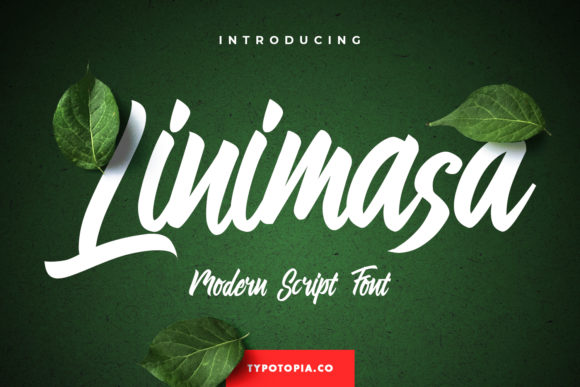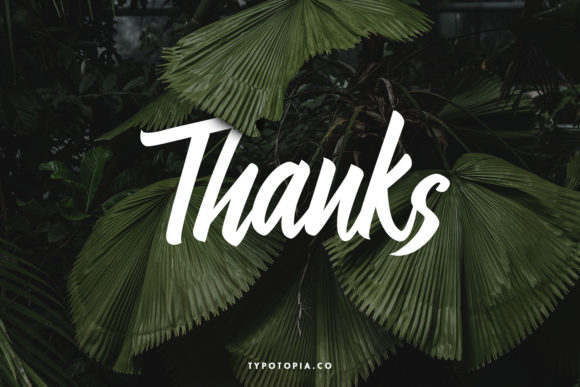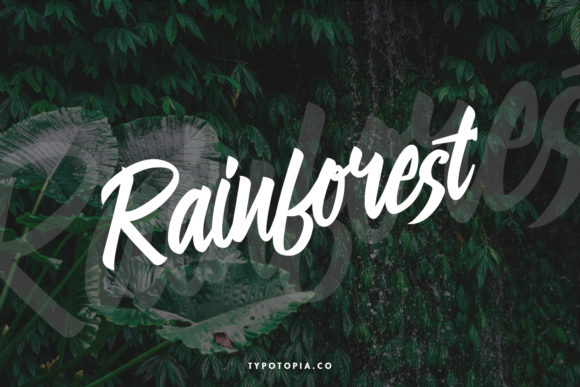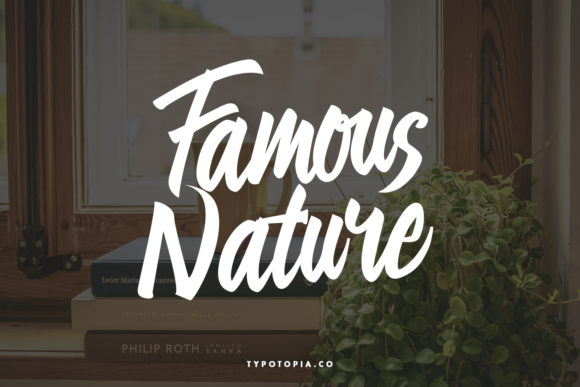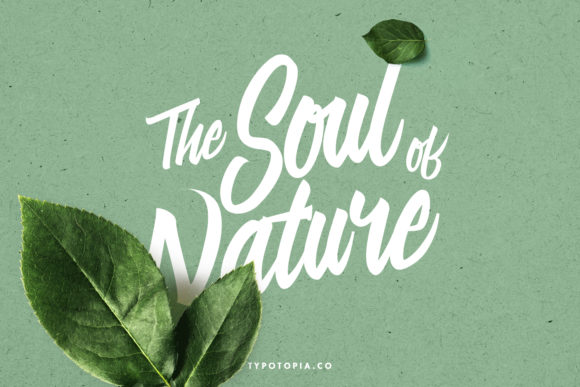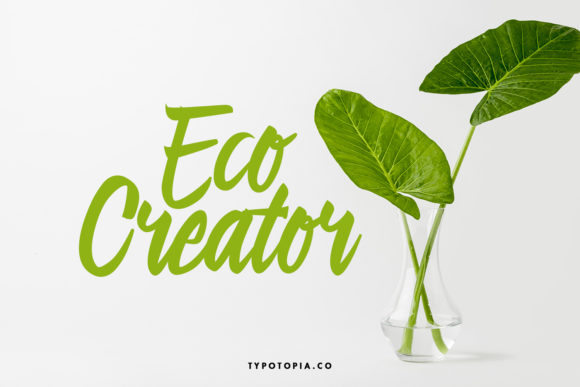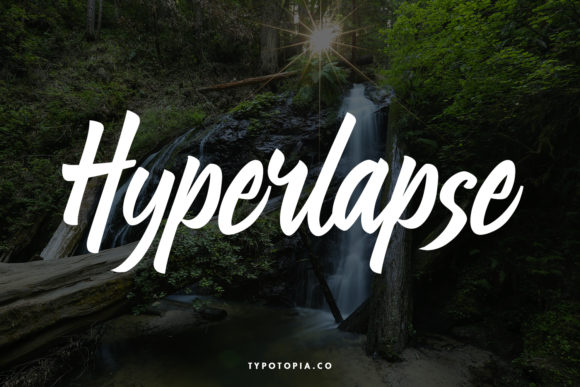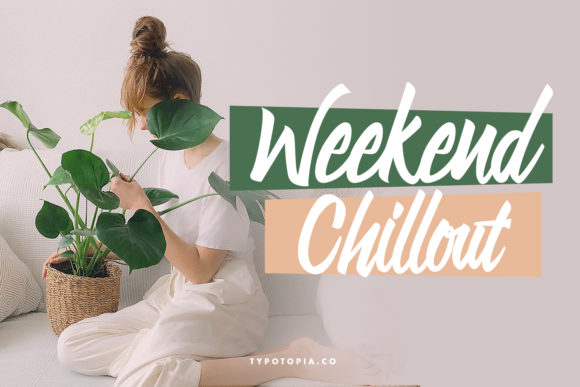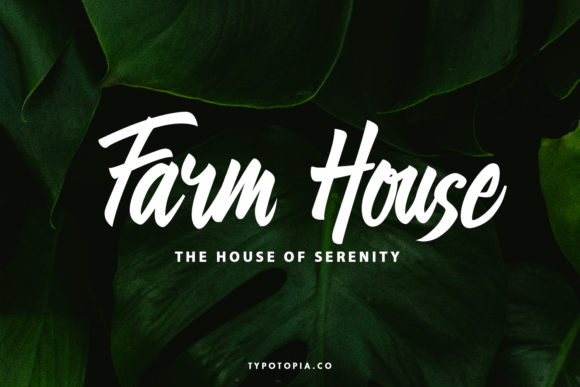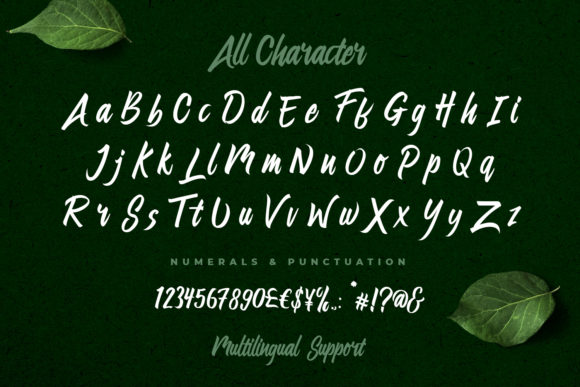
Linimasa Font
About Linimasa Font
“Linimasa” is an exquisite handwritten font that has been meticulously crafted to become a beloved favorite. It seamlessly blends classy calligraphic influences with a contemporary and fresh feel. Prepare to be captivated by its elegance and modernity as you incorporate it into your design projects, taking them to new heights of creativity and sophistication.
The allure of “Linimasa” lies in its careful design, which pays homage to classic calligraphy while infusing a modern twist. Its flowing strokes and graceful curves create a harmonious balance between tradition and innovation. As you explore its distinct style, you’ll discover the perfect fusion of timeless beauty and contemporary aesthetics.
“Linimasa” is poised to enhance a wide variety of design projects. Whether you’re working on wedding invitations, logos, branding, or any creative endeavor that requires a touch of elegance, this font is ready to elevate your work. Its ability to seamlessly blend the old with the new makes it a versatile tool that adapts to different design contexts effortlessly.
As you incorporate “Linimasa” into your designs, you’ll witness how it breathes life into your creative visions. From crafting captivating wedding invitations to designing striking logos, this font exudes a sense of refinement and innovation that captures attention and admiration.
Embrace the beauty of “Linimasa” and let it become an essential element in your design toolkit. Allow its exquisite calligraphic charm and contemporary freshness to inspire your projects, transforming them into extraordinary works that stand out with elegance and sophistication. Whether you’re a seasoned designer or an aspiring creator, “Linimasa” empowers you to create designs that seamlessly bridge the gap between tradition and modernity, leaving a lasting impression on anyone who beholds your work.